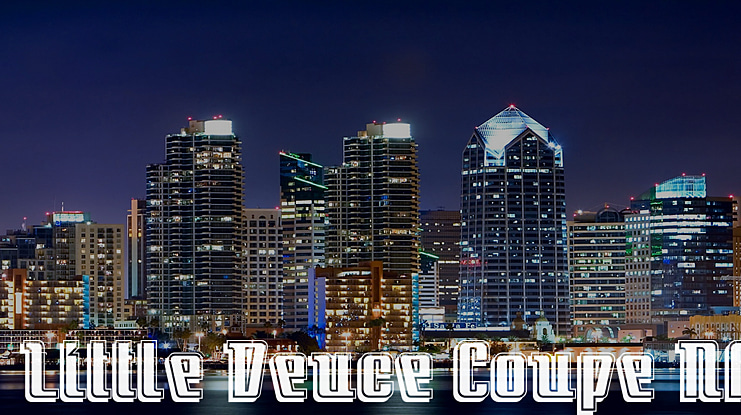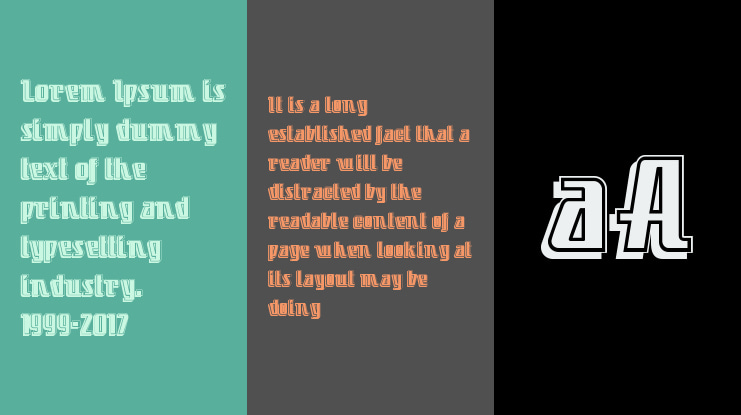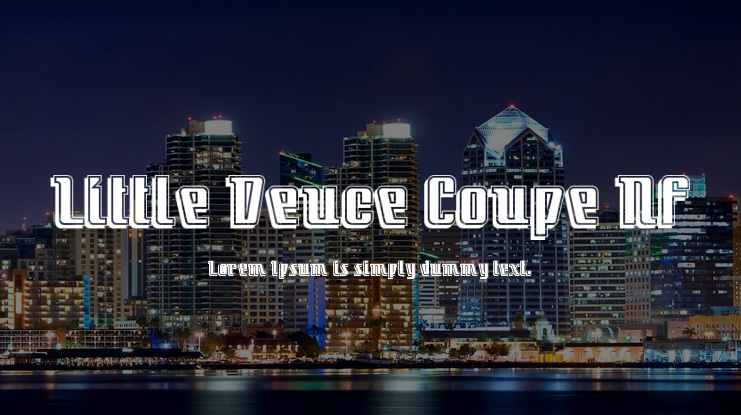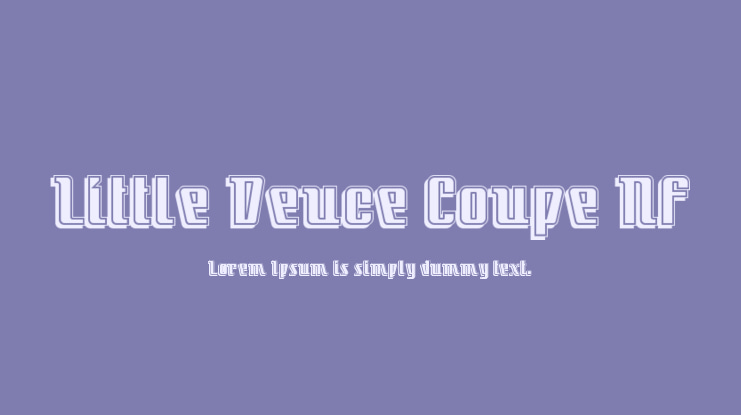
The inspiration for this font came from the lowercase letters of a Ray Larabie work called Andoval. The uppercase letters didnât match at all, so I designed new ones and added the inline and drop-shadow treatment. Named, of course, after a Beach Boys song, wherein the ultimate lid-flipper is the pink slip, daddy.